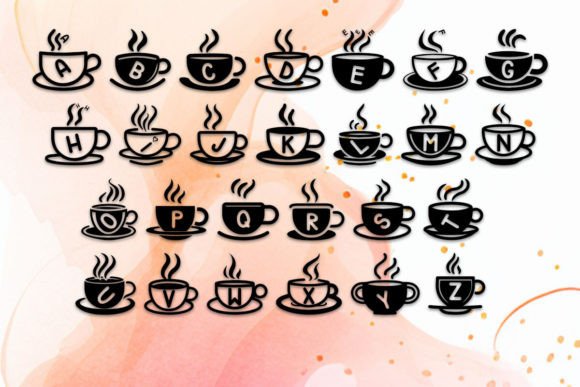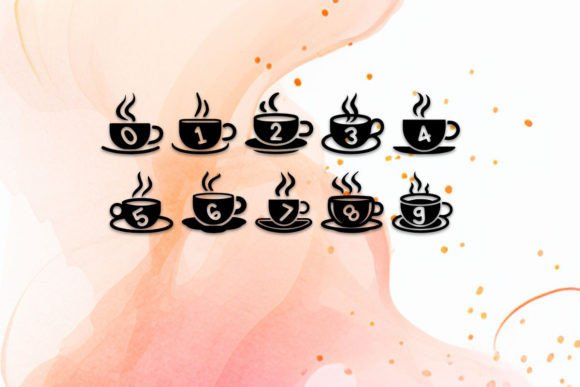
Caffeine for Your Creativity: Introducing Crazy Coffee Cup Font
Who hasn’t experienced that moment of pure creative bliss when the perfect font strikes? You know, that instant when everything comes together, and your design just pops. It’s a feeling that’s hard to replicate, but what if we told you there’s a font that can give you that boost every time you use it? Enter the Crazy Coffee Cup Font, a vibrant and playful collection that’s sure to energize your typography and take your designs to the next level.
This delightful font set features uppercase letters from A to Z and numbers 0 to 9, making it perfect for adding a quirky charm to your projects, invitations, posters, and more. Whether you’re a seasoned designer or just starting out, the Crazy Coffee Cup Font is an invaluable addition to your toolkit, guaranteed to add a fun and dynamic touch to your work.
- Unique Characteristics: The font features a unique, playful design with irregular shapes and varying line widths, adding a touch of whimsy to text-based content.
Crazy Coffee Cup Font Review
I must say, I was both excited and apprehensive about reviewing the “Crazy Coffee Cup Font”. Excited because it’s a unique and quirky font, and apprehensive because it’s a bit unconventional. Here’s my honest take on it.
- Uniqueness: This font stands out from the crowd, and if you’re looking for something that will grab attention, it’s a great choice.
- Playfulness: The font’s quirky design makes it perfect for designs that require a lighthearted or humorous tone.
- Legibility: Despite its unconventional design, the font is still relatively easy to read, especially in larger font sizes.
- Limited versatility: The font’s unique design may not be suitable for all types of projects, particularly those that require a professional or formal tone.
- Difficulty in pairing: The font’s bold design may be challenging to pair with other fonts, which could limit its use in certain designs.
The “Crazy Coffee Cup Font” is a fun and quirky font that’s perfect for designs that require a lighthearted or humorous tone. While it may not be suitable for all types of projects, it’s a great choice for those looking to add some personality to their designs.
Use the Crazy Coffee Cup Font to add a playful touch to your designs.
Pair it with bold colors and fun graphics for a whimsical look.
Experiment with different font sizes and colors to create a unique visual effect.
The Crazy Coffee Cup Font is perfect for:
Food and beverage branding.
Event invitations and signage.
Marketing materials and advertisements.
Personalized gifts and party decorations.